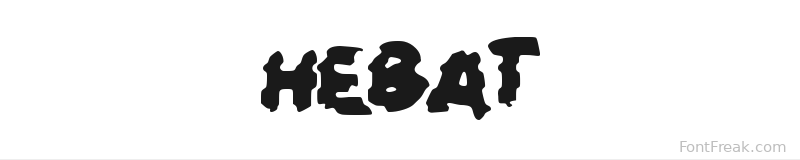
HEBAT
About HEBAT
HEBAT is a striking display font designed by Wahyu Eka Prasetya, perfect for those seeking a bold and expressive typeface. This font falls under the decorative category, boasting a unique, playful style that captures attention with its unconventional shapes and forms. The letters exhibit a heavy stroke weight, providing a strong presence while maintaining a sense of whimsy. The uneven spacing and varied line thickness add a dynamic quality, making HEBAT visually engaging and ideal for creative projects.
This font is particularly suited for a variety of use cases. It shines in children's book covers, where its fun and quirky appearance can captivate young readers. HEBAT also makes for eye-catching event posters, bringing a vibrant energy to announcements and celebrations. Additionally, it can enhance restaurant menus, providing a lively touch that reflects a brand's character. Graphic designers will appreciate its versatility in branding projects, enabling them to create memorable logos that stand out. Content creators can also leverage this font for social media graphics, ensuring their posts grab attention in a crowded digital landscape.
What truly sets HEBAT apart is its ability to evoke emotion and spark creativity, making it a go-to choice for those who want to make a statement. With its distinctive style and versatile applications, HEBAT font free download is a valuable addition to any designer's toolkit, ensuring that every project stands out and leaves a lasting impression.